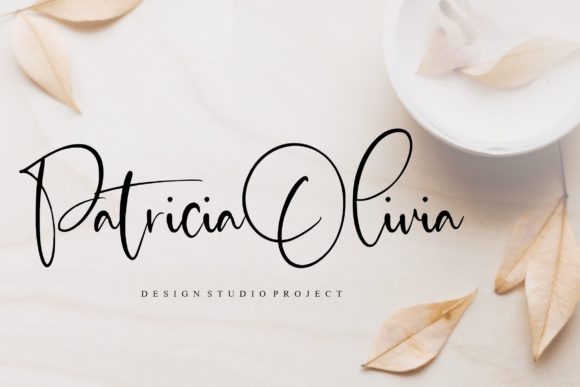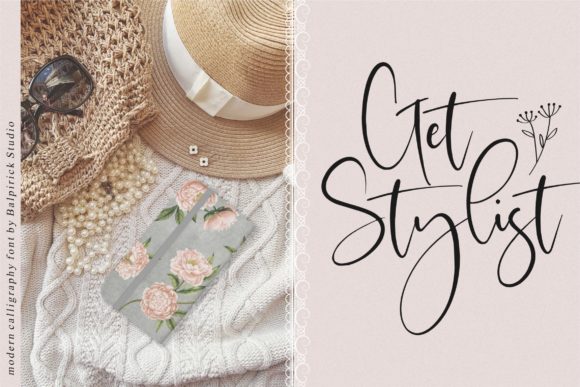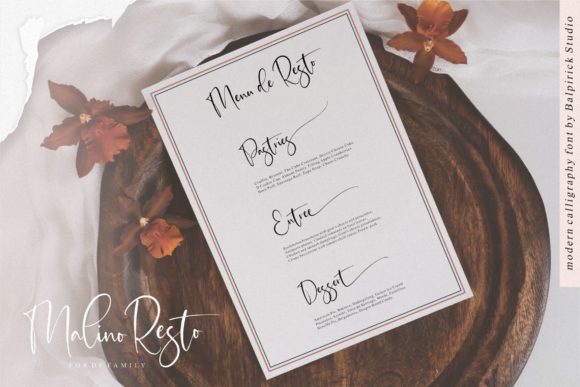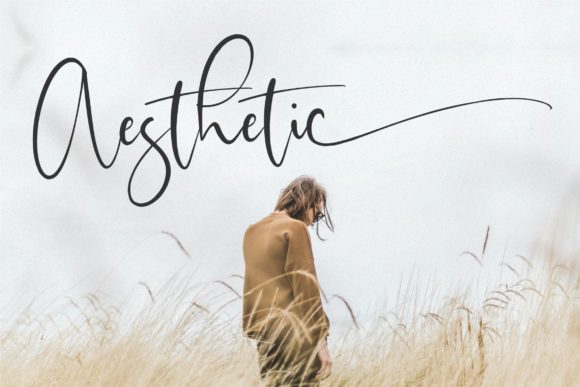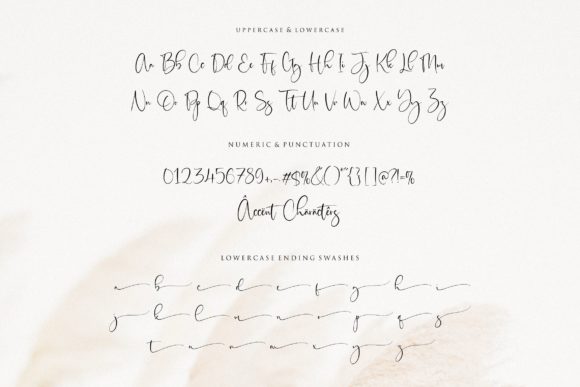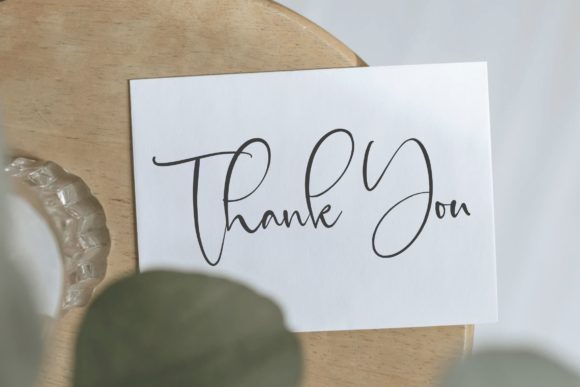
Introduction to Sisterli Font
Sisterli is an elegant and dainty handwritten font that features sweet and delicate swashes.
This original look will appeal to a wide range of crafty ideas, from letterheads and titles, to stationery .
Key Features of Sisterli Font